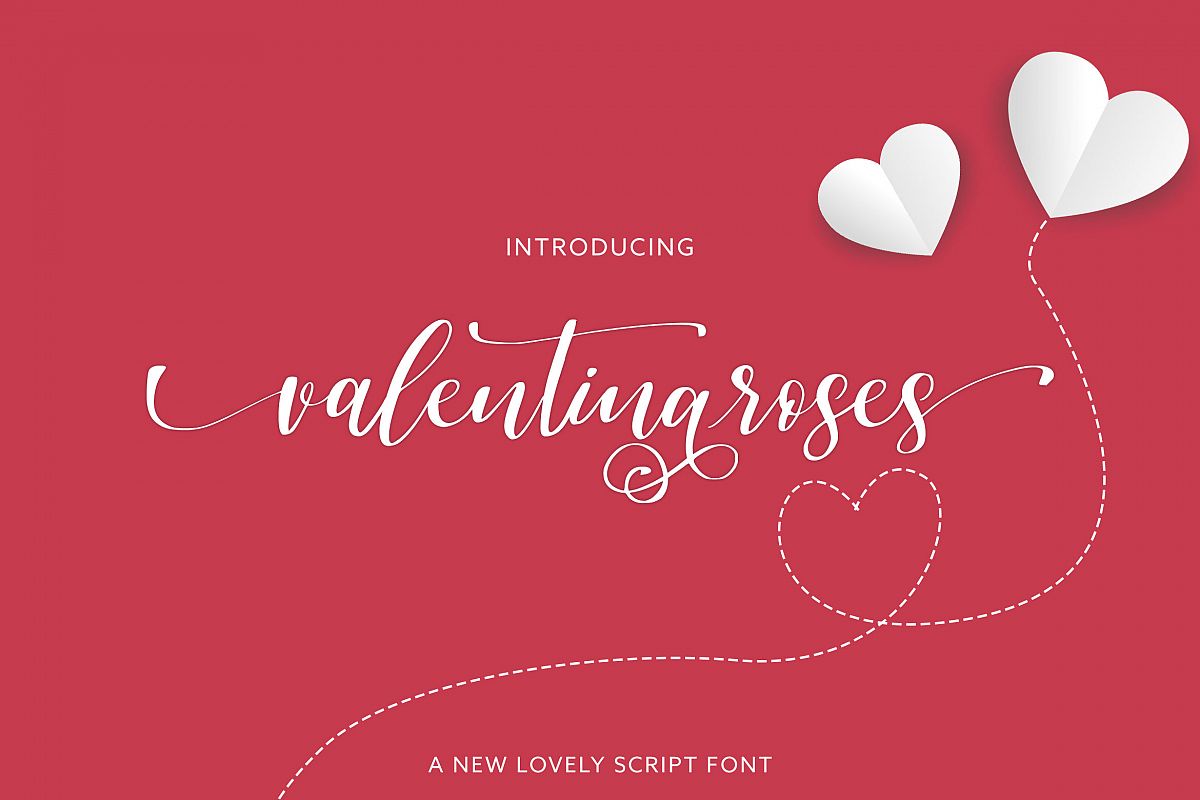
Valentinaroses Lovely Script Font
Valentinaroses Lovely Script Font set of lovely uppercase and lowercase letters, multilingual symbols, numerals, punctuation and ending lowercase swashes. is perfect fo you up coming projects. such as modern invitation design, branding stationery design, wedding, birthday, qoute, craft, etc and any projects.